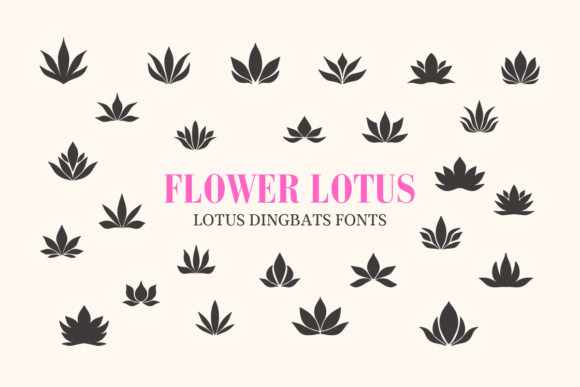
In a world where words seem ordinary, let Flower Lotus Font be your enchanting escape to a realm of magic and whimsy. Unleash your creativity with this captivating dingbats font, meticulously crafted by Eystore to transform your designs into enchanting masterpieces. Picture this: a wedding proposal adorned with shimmering sparkles, greeting cards that burst with joy, or any project that craves a touch of playful elegance.
Flower Lotus blooms with an array of enchanting symbols, each meticulously designed to capture the essence of love, joy, and celebration. Say goodbye to dull and monotonous fonts; instead, embrace the allure of Flower Lotus and watch your designs come alive with its captivating charm.
With Flower Lotus, you're not just downloading a font; you're inviting magic into your creative world. Its cheerful and charming demeanor is a breath of fresh air, inspiring you to create designs that resonate with your audience's hearts. From heartfelt wedding invitations to playful social media posts, Flower Lotus will add a touch of magic to every project.
So, step into the realm of enchantment and allow Flower Lotus to sprinkle its magic onto your creative journey. Experience the joy of design like never before, knowing that every creation bears the mark of elegance and beauty. Embrace Flower Lotus, and let your designs bloom with newfound wonder.